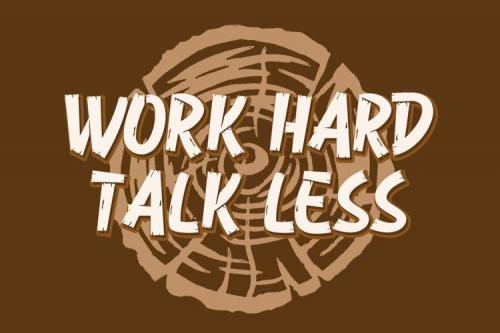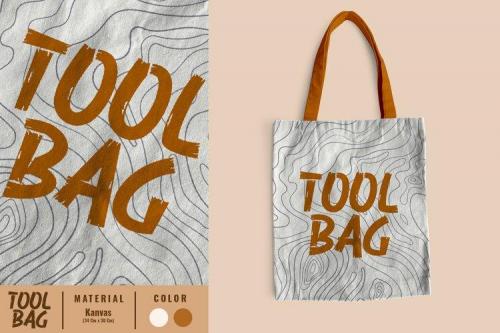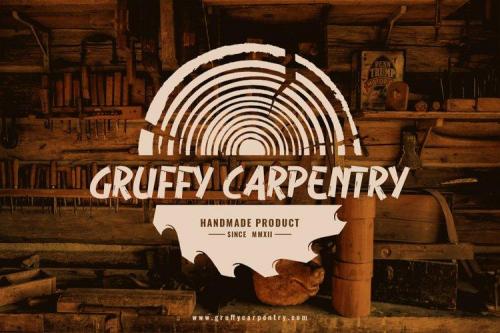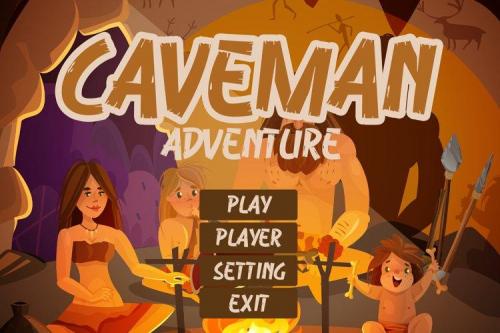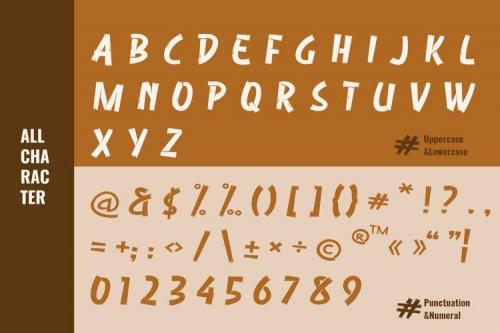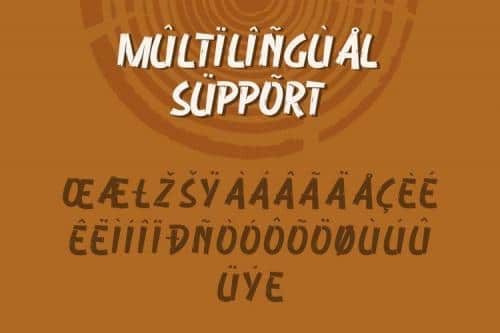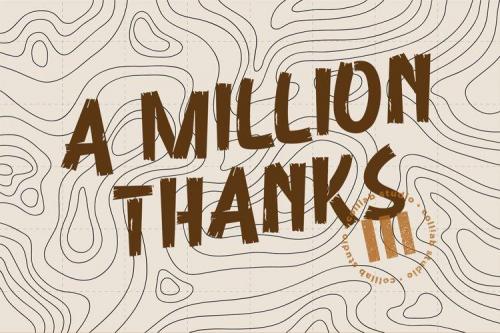
Wood Trap Font is a bold and chunky lettered display font. This font is perfect for use in title designs such as clothing, invitations, title books, stationery designs, quotes, branding, logos, greeting cards, t-shirts, packaging designs, posters, and more. Add it to your creative ideas and notice how it makes them stand out!